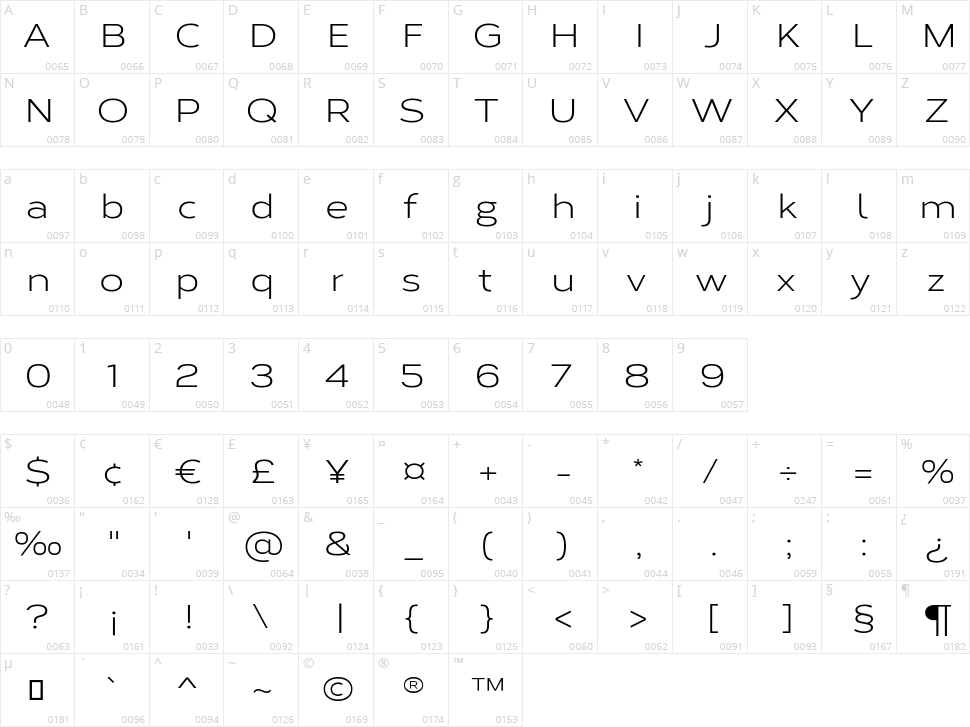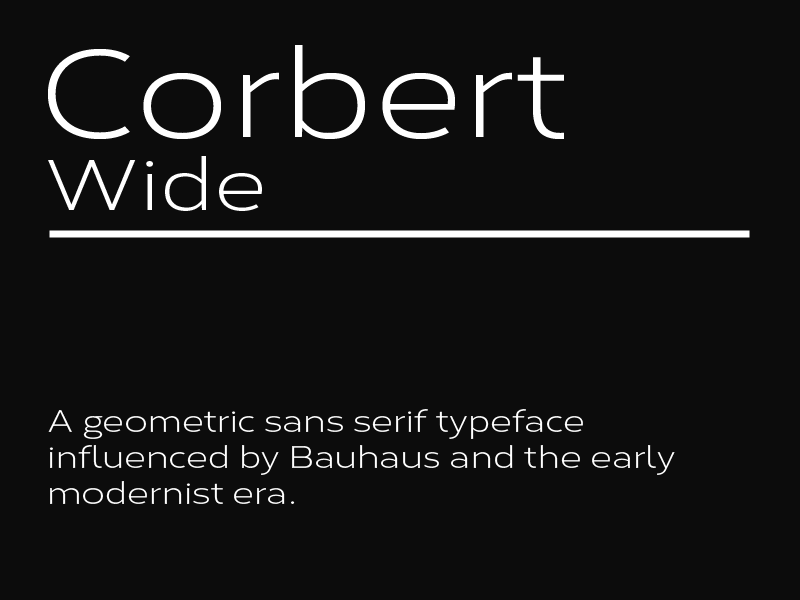
Corbert Wide
A wide geometric sans serif typeface influenced by Bauhaus and the early modernist era. Precise shapes are optically adjusted to create a clear, natural typeface with excellent legibility that works well across a full range of applications. Corbert Wide is part of the popular Corbert type system; other styles include Corbert and Corbert Condensed.
Details include over 590 characters, Opentype features consist of five variations of numerals, including inferiors, superiors, fractions, alternative lowercase a, e and g, and language support covering Western, South, and Central Europe.